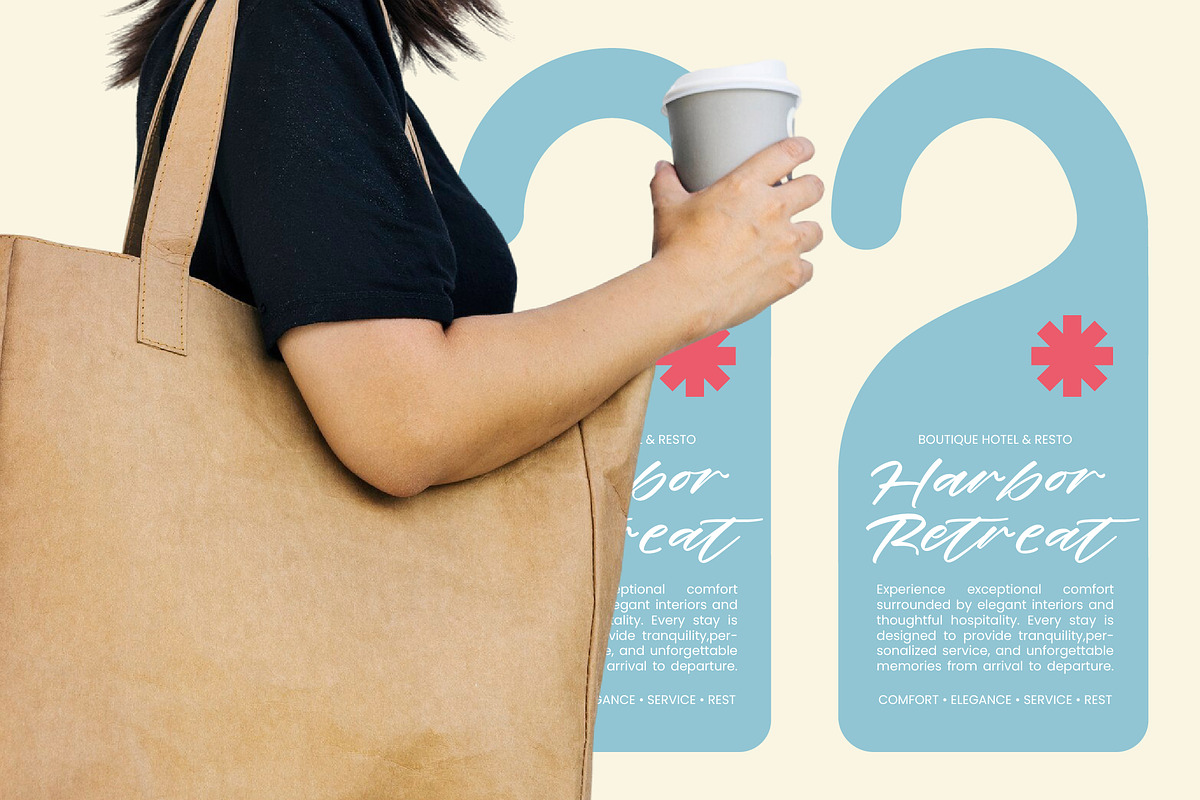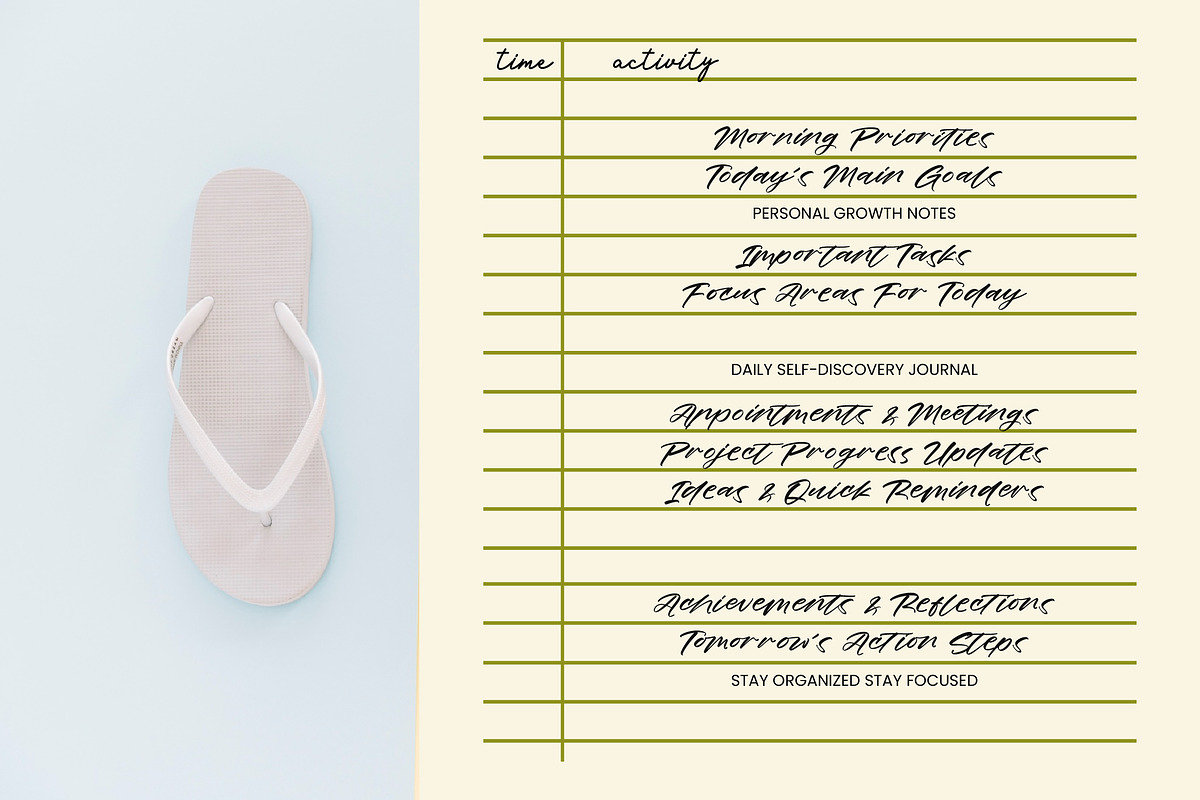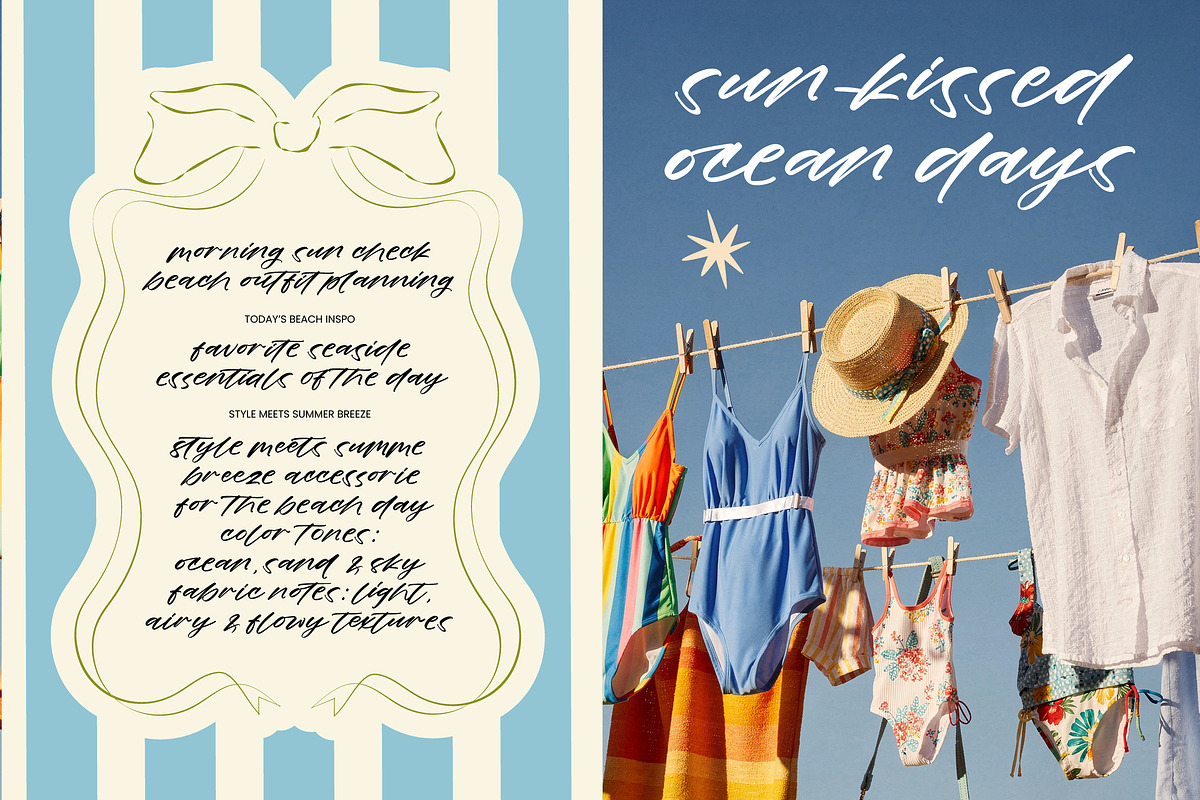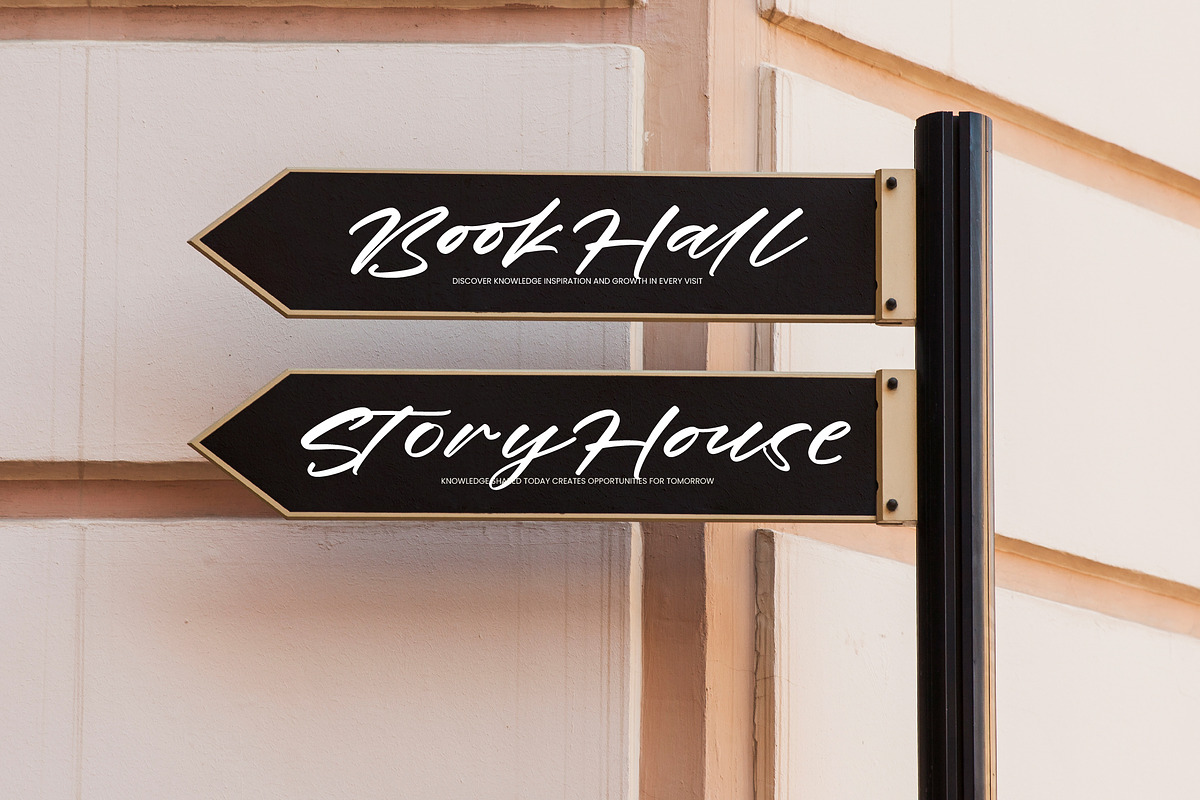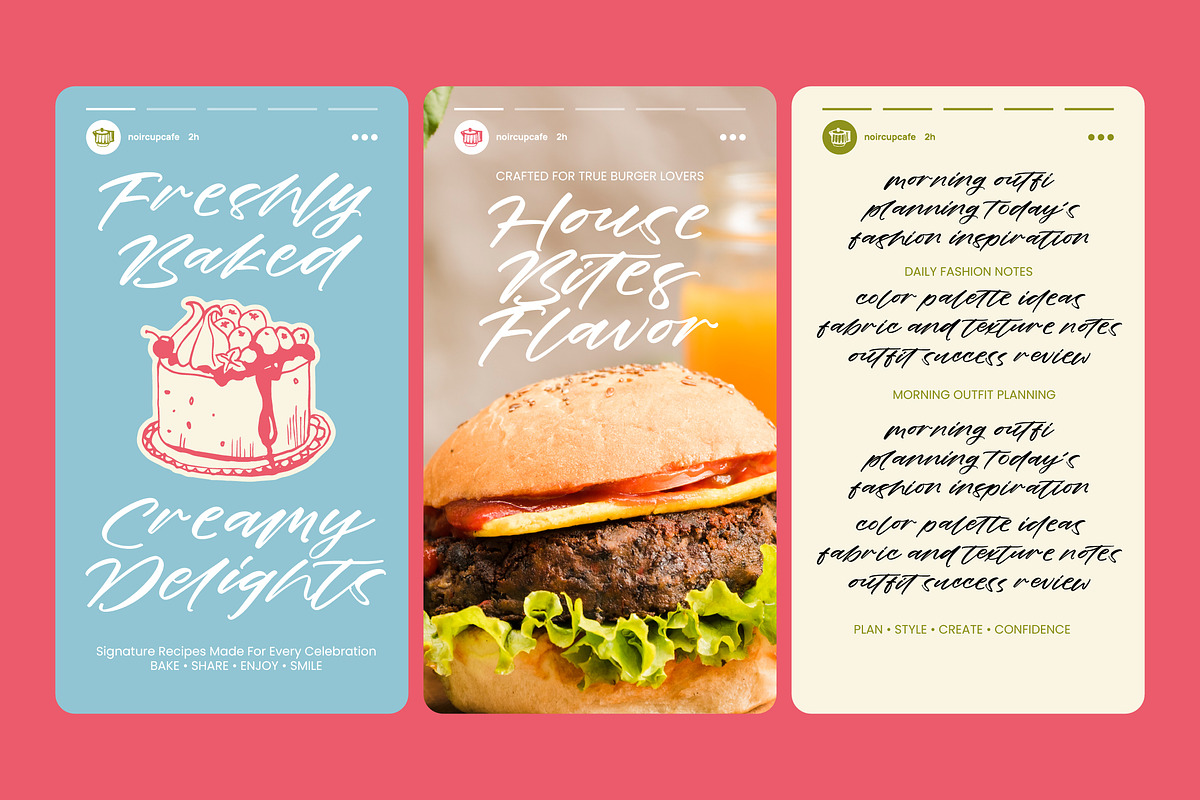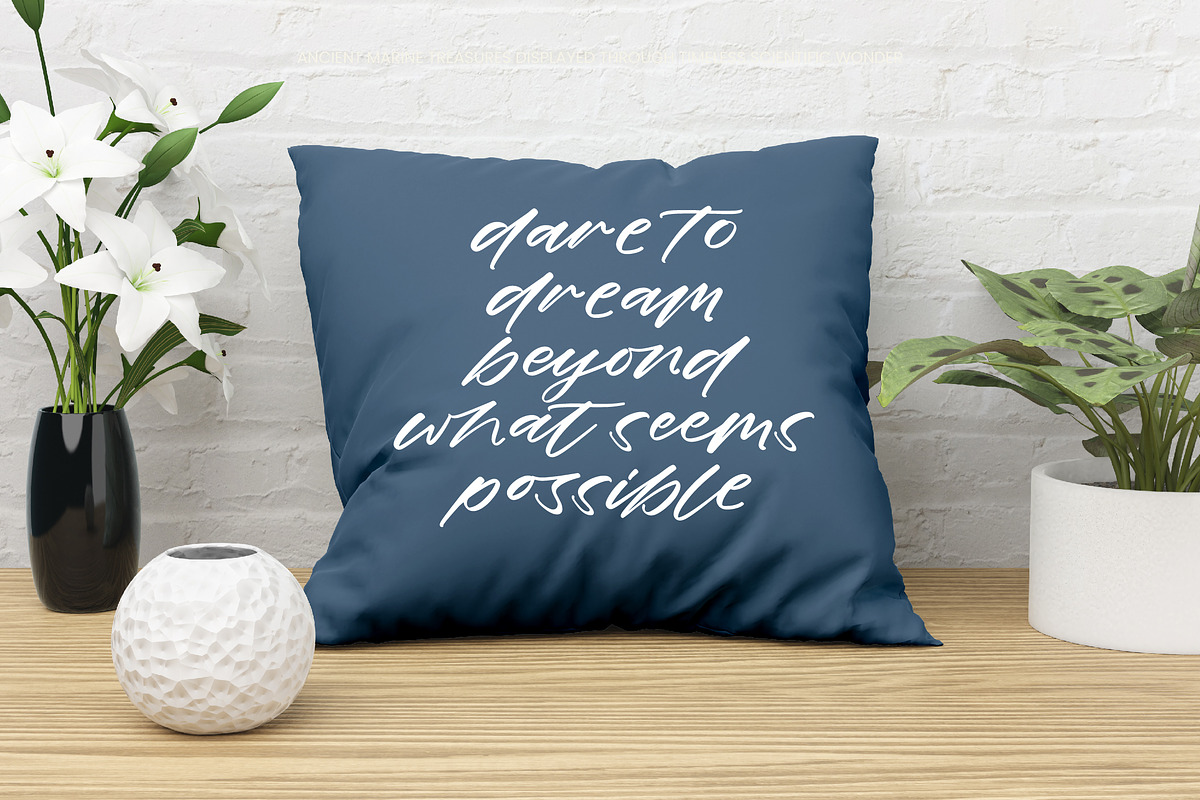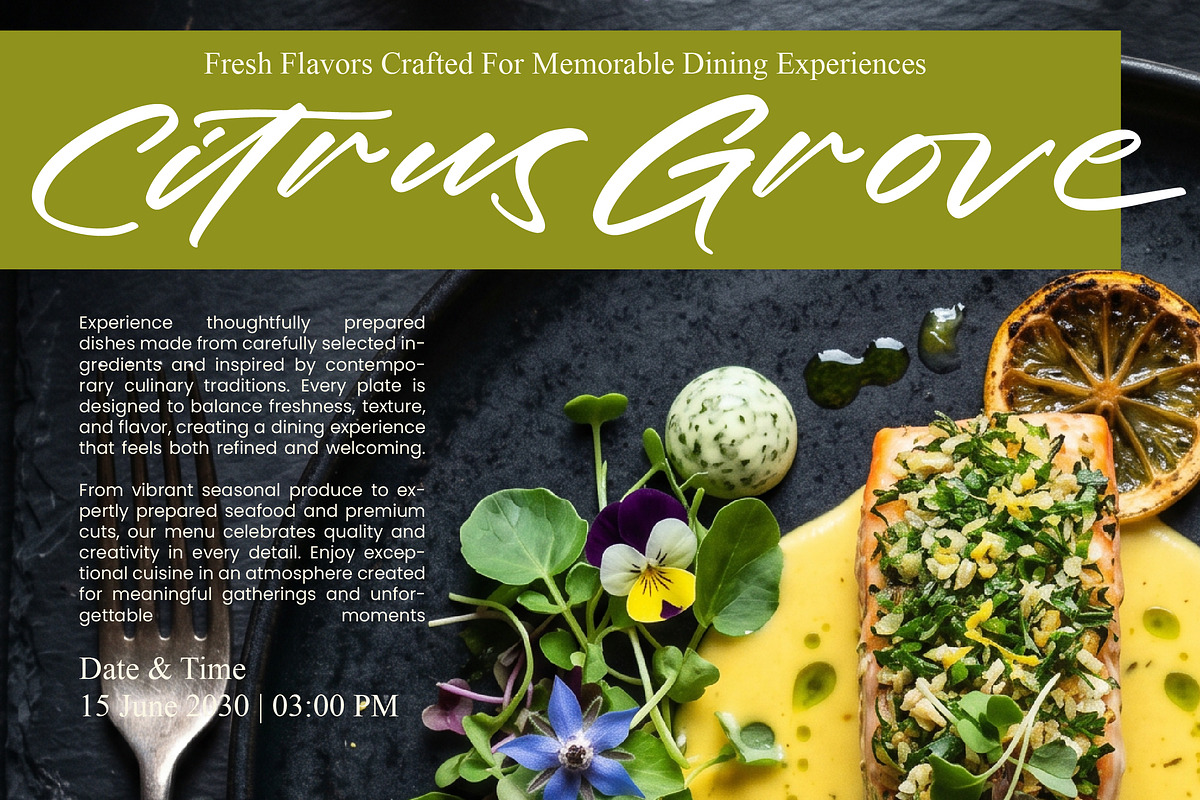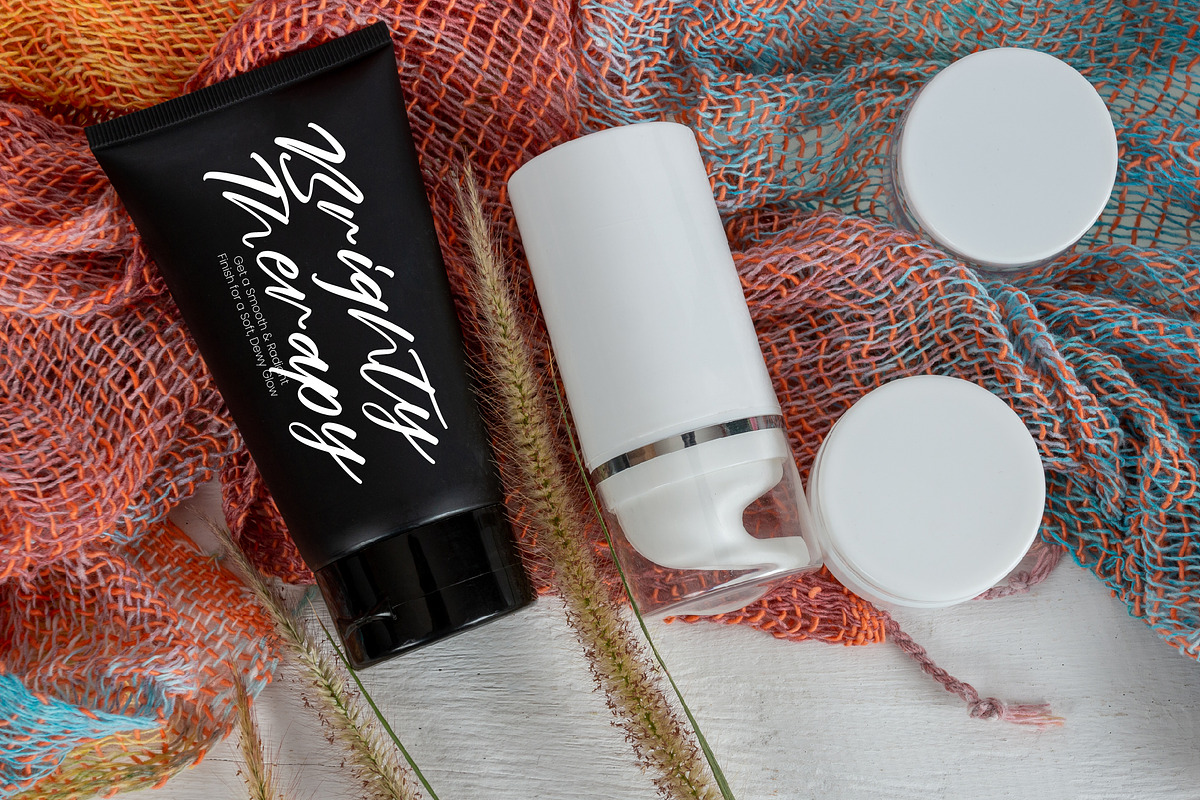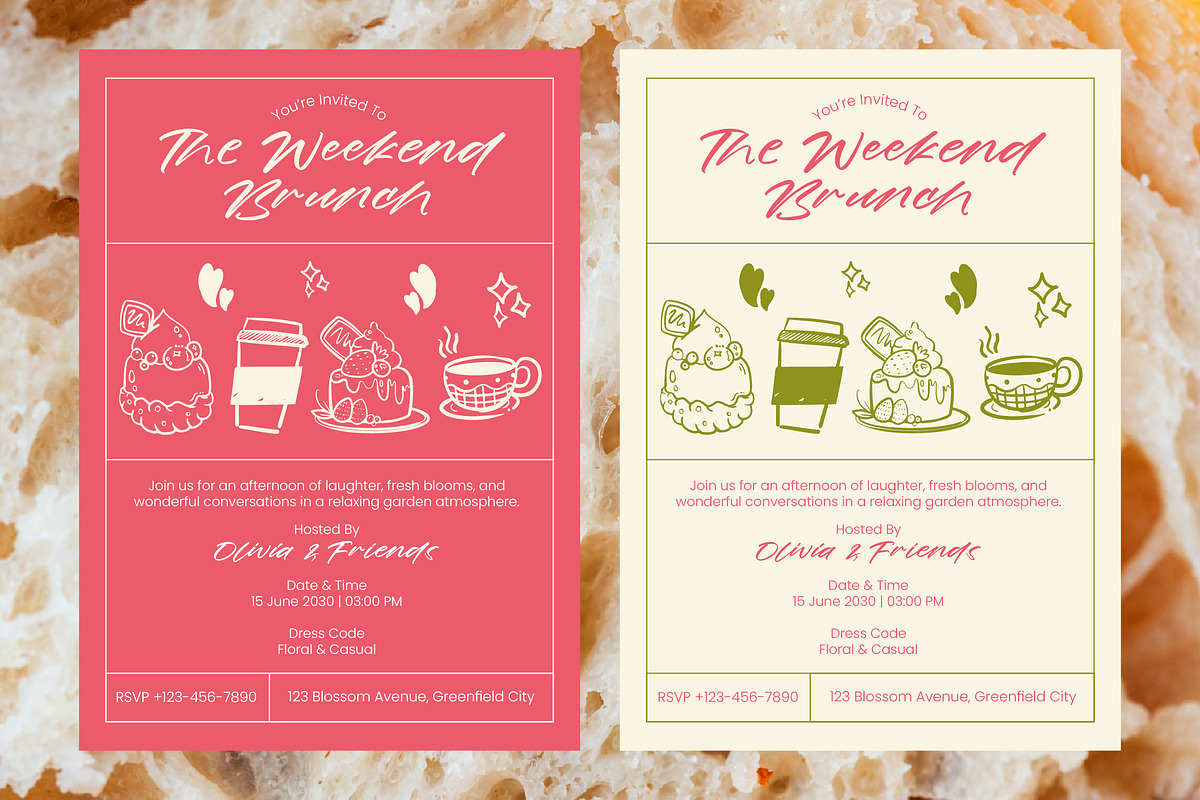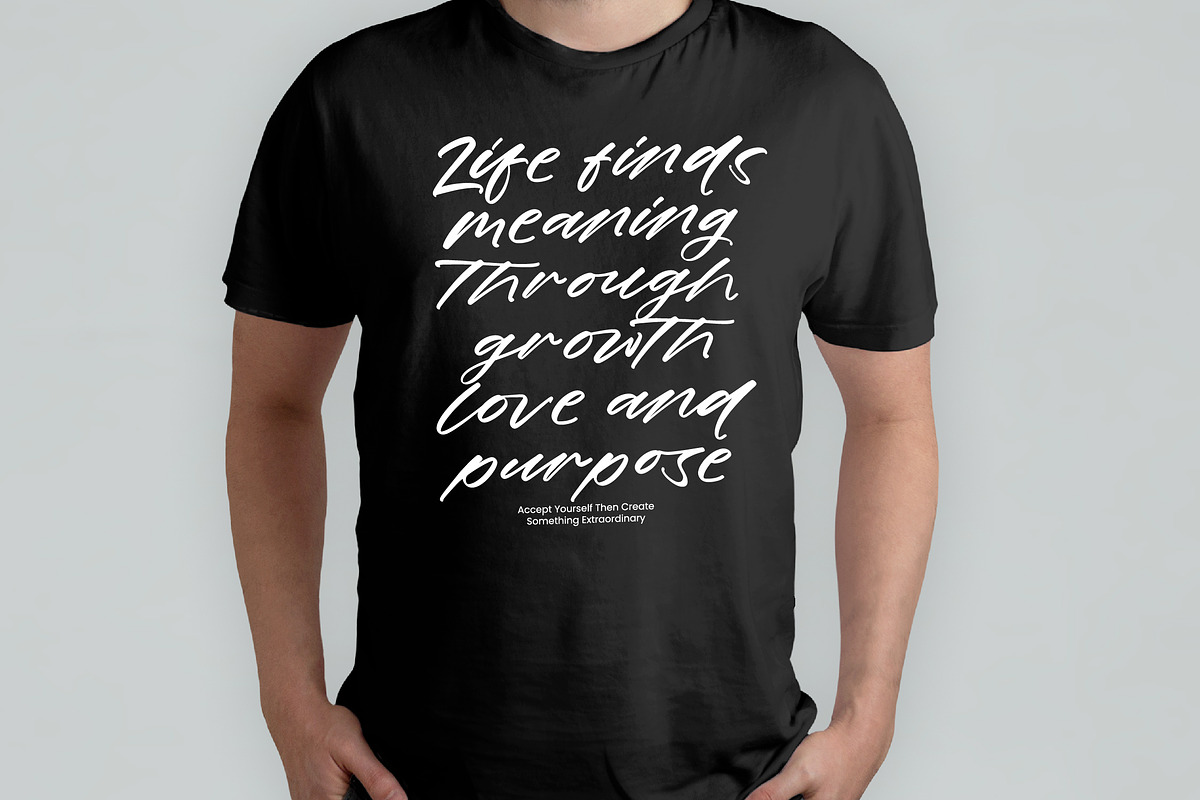
Garden Harmony Handwritten Brush
Garden Harmony - Handwritten Brush Script , Elevate your creative vision with a typeface that embodies organic elegance and effortless flow. Garden Harmony - Handwritten Brush Script is a meticulously designed font that captures the authentic texture of hand-crafted brush strokes. Its balanced weight and natural rhythm make it an essential tool for designers seeking to inject expressive personality and warmth into their visual storytelling across all platforms.
Discover the perfect typographic partner for high-end branding and artisanal projects. This versatile script is perfect for luxury branding, premium packaging, and lifestyle content that requires a personal, human touch. From editorial design to bespoke wedding invitations and logo creation, Garden Harmony - Handwritten Brush Script provides a sophisticated aesthetic that resonates with modern audiences looking for authenticity.
Engineering meets artistry with a robust set of features including 154 ligatures and 26 alternates that ensure a custom, hand-lettered look every time. With its extensive multilingual support, Garden Harmony - Handwritten Brush Script adapts seamlessly across global markets, making it incredibly versatile for international projects. This technical depth allows for maximum creative flexibility, ensuring your message remains clear and stylish in any language or region.